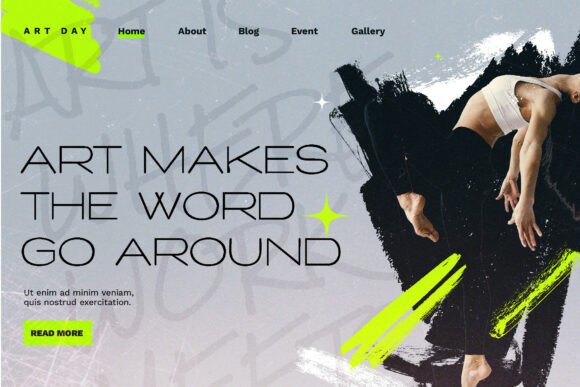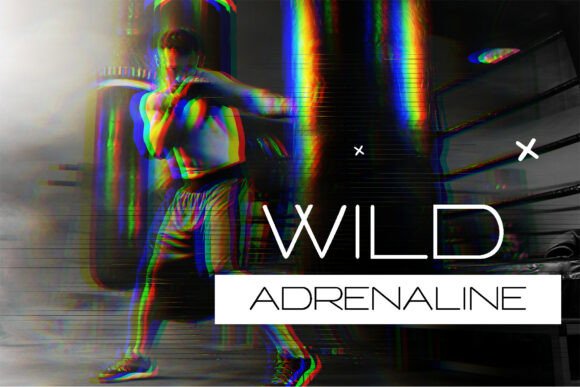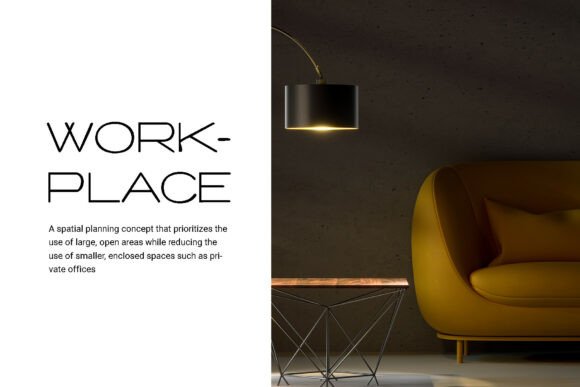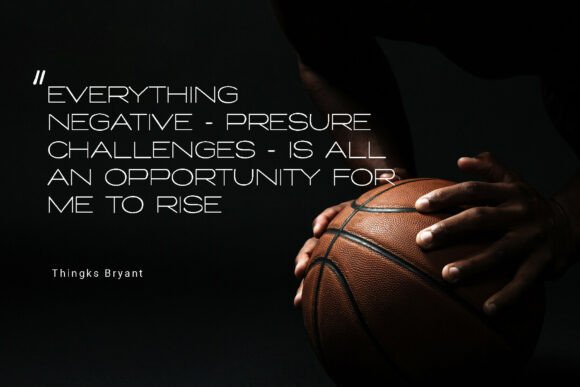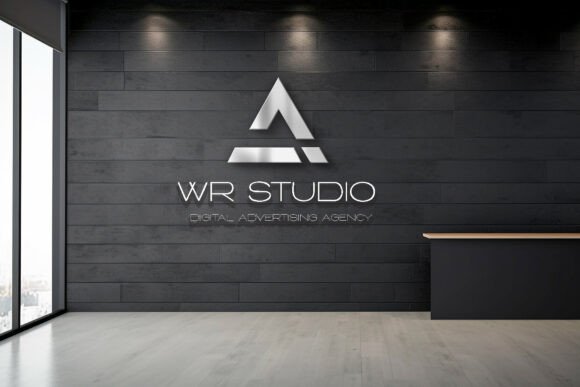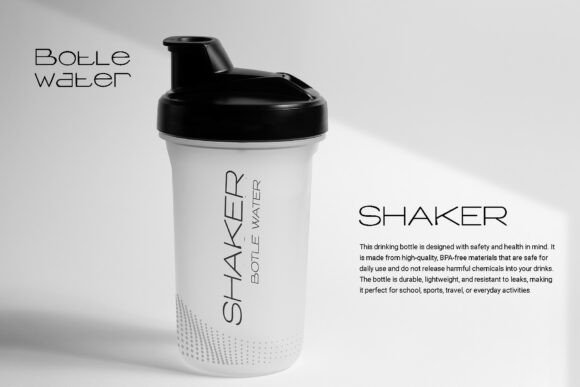
The Perfect Typography to Elevate Your Design
Have you ever stumbled upon a design that left you speechless, wondering how they managed to capture the perfect blend of elegance and modernity? It’s those moments that make us remember the importance of typography in design. A well-chosen font can make or break a project, and that’s exactly where the Bagoes Font comes in – a beautifully crafted display font designed to make your creative endeavors stand out.
The Bagoes Font is more than just a font; it’s a tool to elevate your designs and give them a touch of sophistication. Whether you’re working on a logotype, title, or cover, this font is sure to impress. As a designer, you understand the value of a versatile and high-quality font, and that’s exactly what the Bagoes Font offers – a perfect choice for any project that demands a modern and chic look.
Bagoes Font Key Features
- Character Set: This font includes a comprehensive character set, including Latin, Cyrillic, and Greek alphabets, as well as various punctuation marks and symbols.
- Unique Characteristics: Bagoes Font features a distinctive, modern design with a unique blend of geometric and organic elements, making it ideal for use in contemporary designs and branding.
- Font Weight and Style: Bagoes Font includes multiple font weights and styles, including light, regular, bold, and italic, allowing users to customize the look and feel of their designs.
Bagoes Font Review
I’ve recently had the chance to work with the Bagoes Font, and I wanted to share my honest thoughts on this font family.
- Unique Character**: Bagoes Font offers a distinctive and modern feel, perfect for making a statement in your designs.
- High-Quality Rendition**: The font’s rendering is crisp and clear, making it ideal for digital applications.
- Comprehensive Character Set**: Bagoes Font includes a wide range of characters, including Cyrillic and Greek alphabets.
- Legibility at Small Sizes**: While the font looks great at larger sizes, its legibility can suffer at smaller sizes.
- Limited Kerning**: Kerning could be improved, especially for certain character combinations.
Overall, Bagoes Font is a solid choice for designers looking to add a modern touch to their projects. While it has some limitations, its unique character and high-quality rendition make it a great option for the right projects. With some tweaks to address its limitations, I believe Bagoes Font has the potential to become a top choice for designers.
Tips for Getting the Most Out of Bagoes Font
Here are some tips for getting the most out of Bagoes font:
- Use it for creative and playful designs.
- Pair it with bold and modern fonts for contrast.
- Experiment with different font sizes and styles.
- Use it for headings and titles for added emphasis.
Here are some common use cases for Bagoes font:
- Designing social media graphics and
Alternatives to Bagoes Font for Designers
Playfair Display is a luxurious, high-end font ideal for titles, headings, and other text that demands attention. It’s perfect for use in formal invitations, luxury branding, or any project that requires a touch of sophistication. In comparison to Bagoes Font, Playfair Display is more elegant and refined, making it a better choice for high-end designs.
Great Vibes is a modern, elegant script font suitable for use in titles, headings, and body text. It’s a great alternative to Bagoes Font for designers who want a more contemporary look. Great Vibes is more legible and easier to read, making it a better choice for long-form content or body text.
Pacifico is a beautiful, modern script font perfect for use in titles, headings, and body text. It’s a great alternative to Bagoes Font for designers who want a more relaxed, casual look. Pacifico is more versatile than Bagoes Font, making it suitable for a wide range of designs, from fashion to food and drink branding.